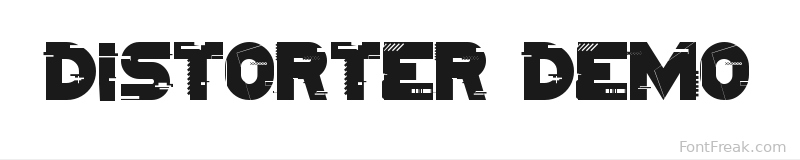
Distorter Demo
The Distorter Demo font, created by Noah Type, is a striking display typeface that captures attention with its unique and contemporary style. This font features bold, geometric forms with a distorted effect that adds a dynamic flair to any design project. Its thick strokes and varying weight create a sense of movement, making it an excellent choice for designs that require a modern and edgy aesthetic. The interplay of solid and fragmented elements gives the Distorter Demo font a distinctive character that stands out in a crowded visual space.
With its eye-catching design, the Distorter Demo font is ideally suited for a variety of applications. It works exceptionally well for movie posters, where its bold presence can convey excitement and intrigue. Additionally, this font can elevate promotional materials for events, allowing businesses to capture the essence of their brand in a memorable way. Graphic designers can also utilize this font for album covers, creating a striking visual impact that resonates with music lovers. Furthermore, the Distorter Demo font adds an artistic touch to social media graphics, helping content creators engage their audience with visually compelling text.
Targeted primarily at graphic designers, small business owners, and content creators, the Distorter Demo font offers versatility and style. Its unique visual characteristics make it a powerful tool for anyone looking to make a statement in their designs. The Distorter Demo font free download option allows users to easily incorporate this exceptional typeface into their projects, empowering them to create captivating visuals that leave a lasting impression.
In a world where typography can define a brand's identity, the Distorter Demo font stands out with its distinctive and modern appeal, making it a valuable asset for any creative endeavor.